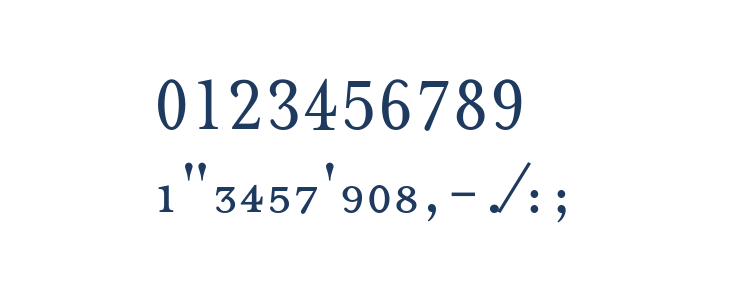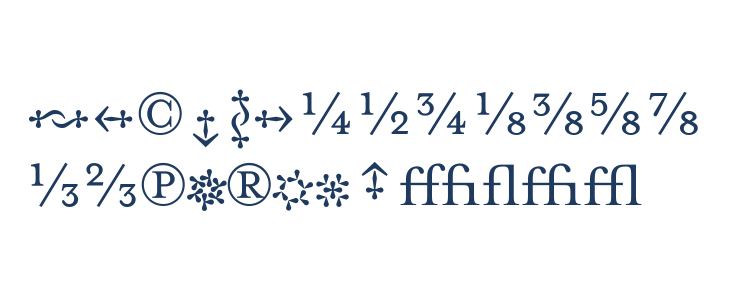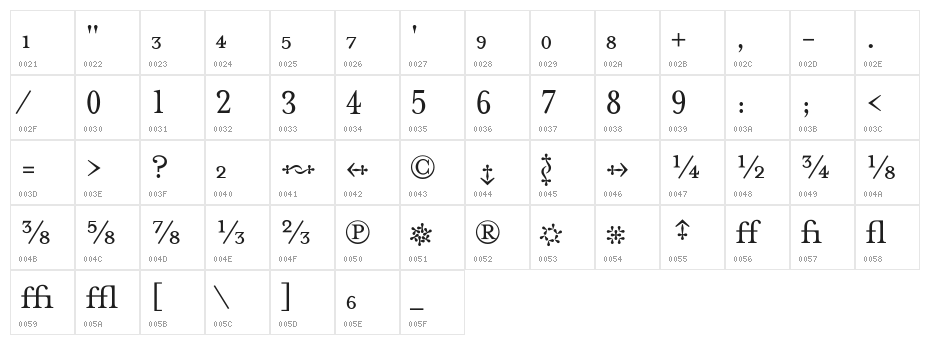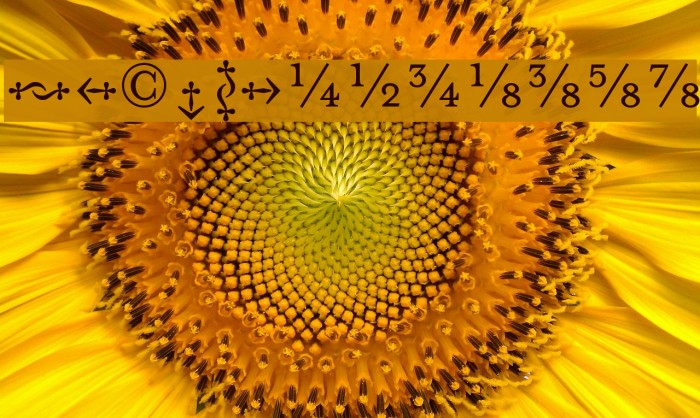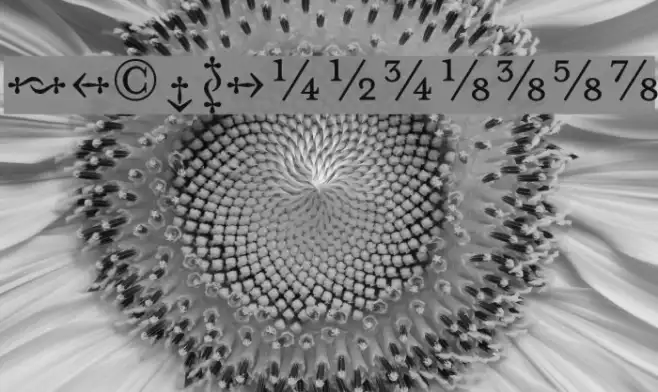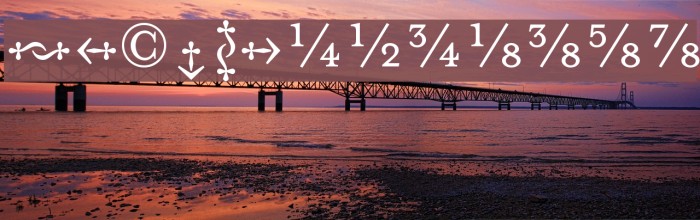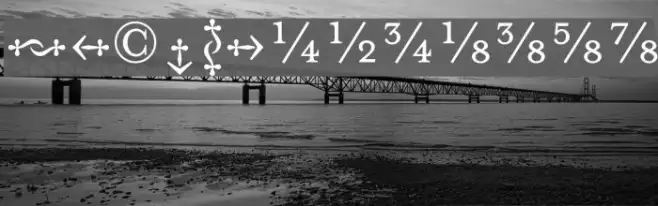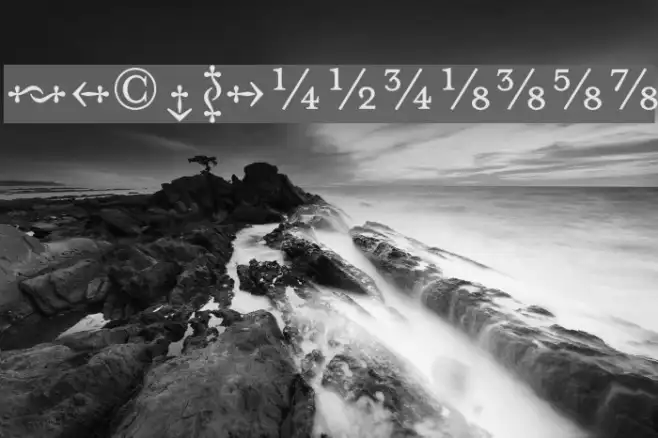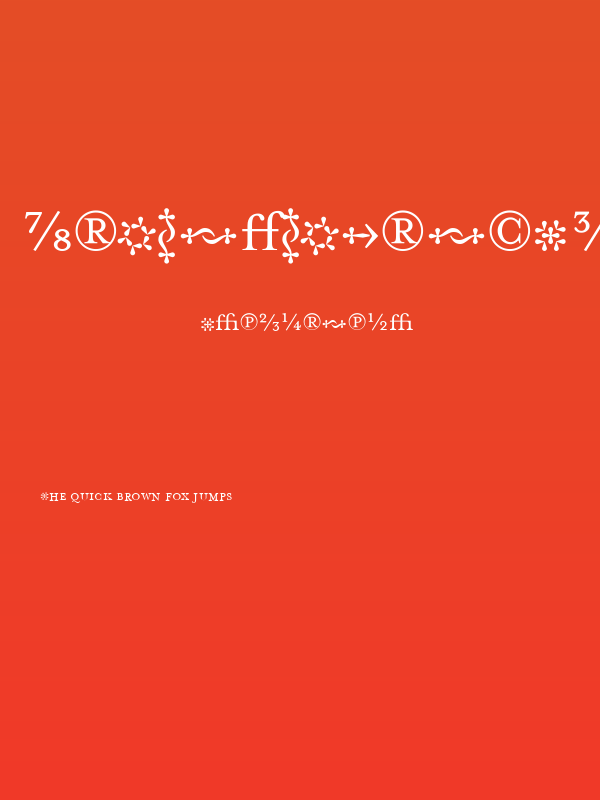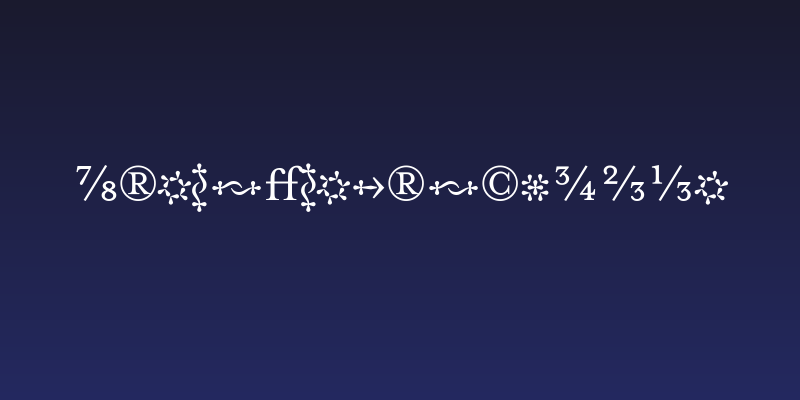
MrsEavesFractions Font
MrsEavesFractions Description
This font exudes a classic and elegant style, characterized by its refined serifs and balanced proportions. The uppercase letters are stately and well-defined, while the lowercase letters maintain a harmonious flow. Numerals are clear and distinct, making them suitable for both text and display purposes. Special characters and ligatures are thoughtfully designed, adding a touch of sophistication. The overall appearance is timeless, making it versatile for various applications.